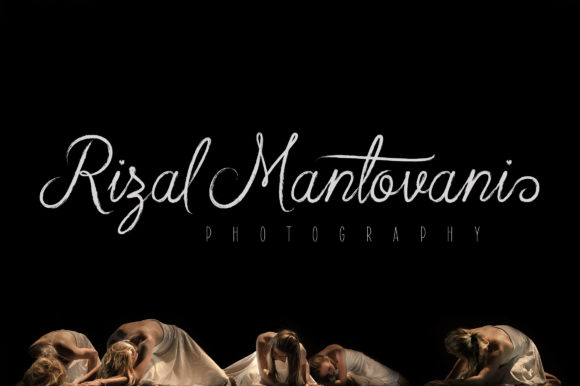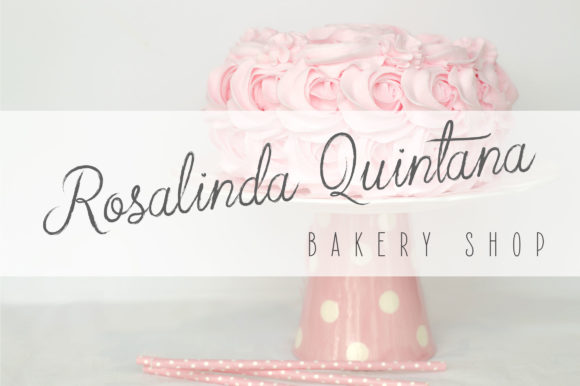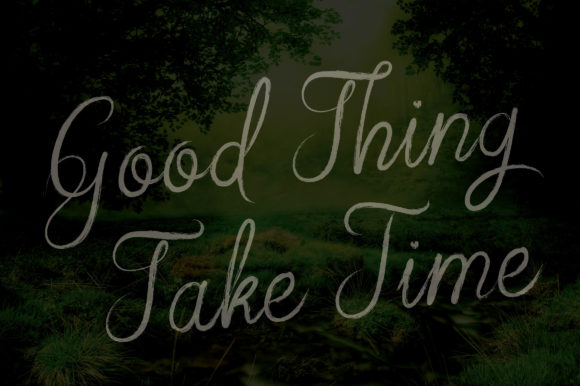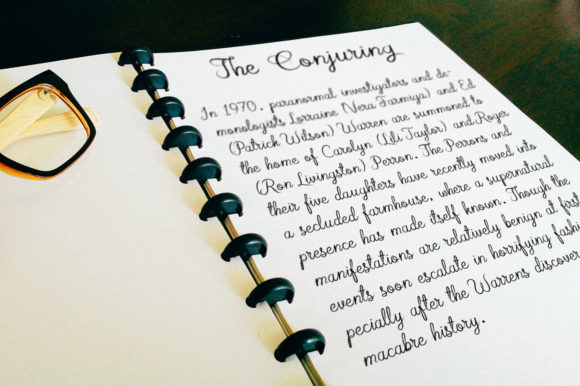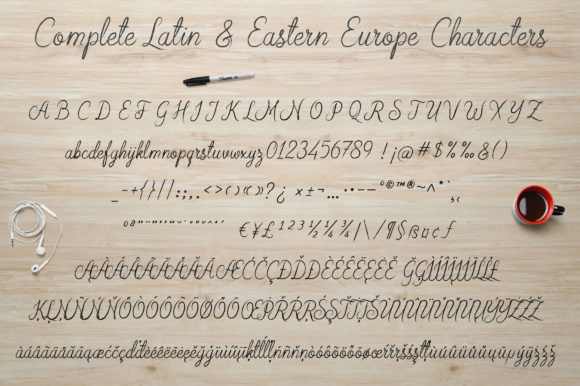
Arabian Script Font
About Arabian Script Font
The Arabian is an elegant script typeface. It has a semi-bold weight with a textured shape.
It’s perfect for adding an elegant look to your wedding invitations, product packages, logos, titles, subtitles, flyers, quotes, and much more!